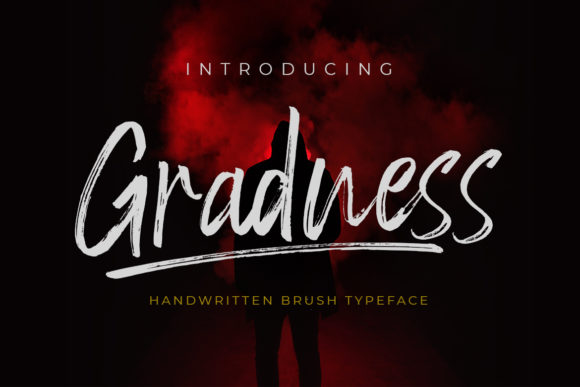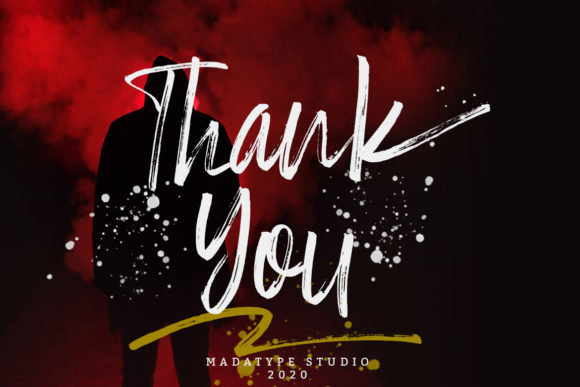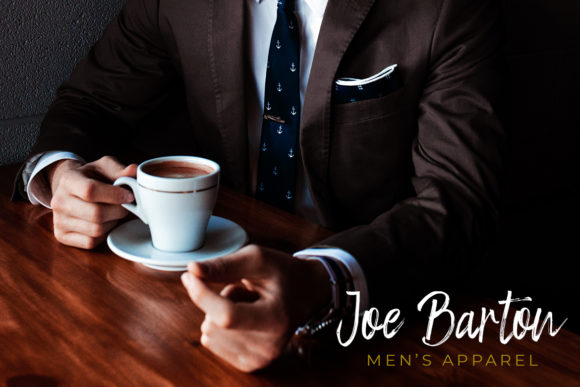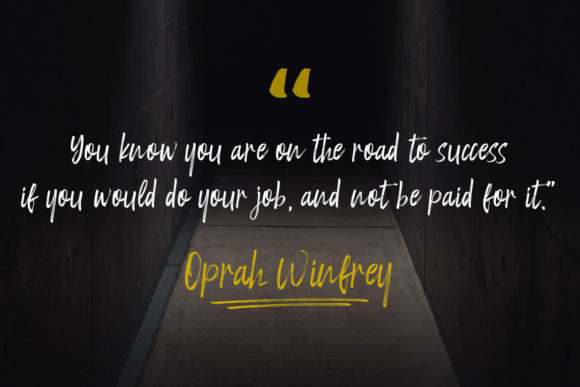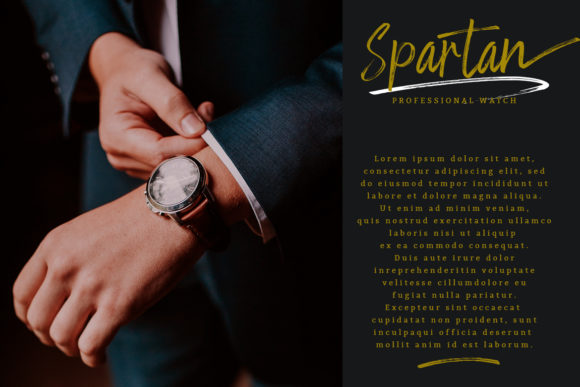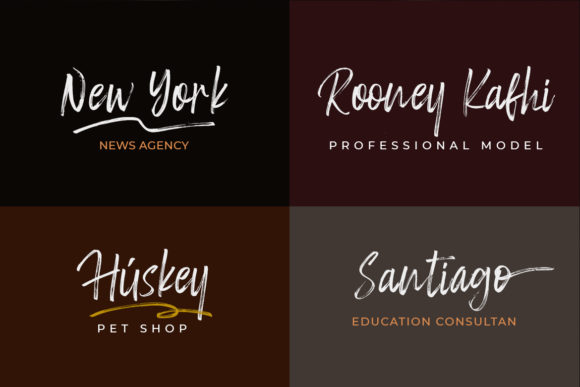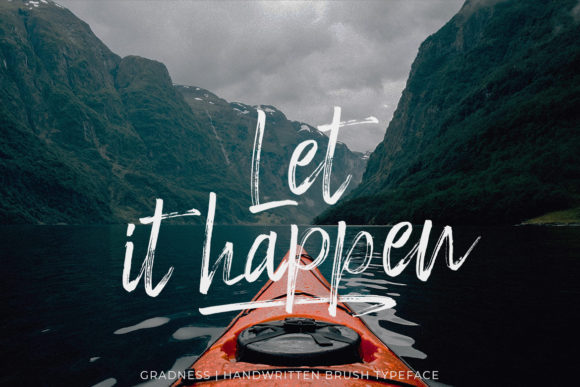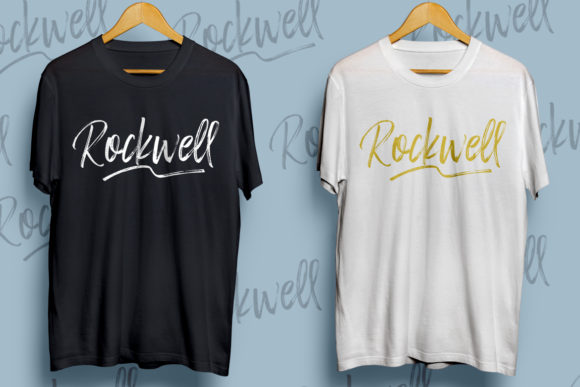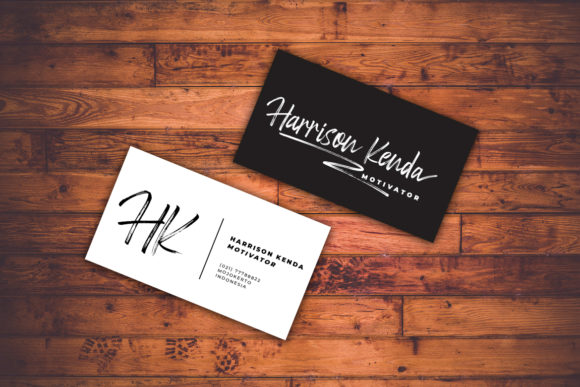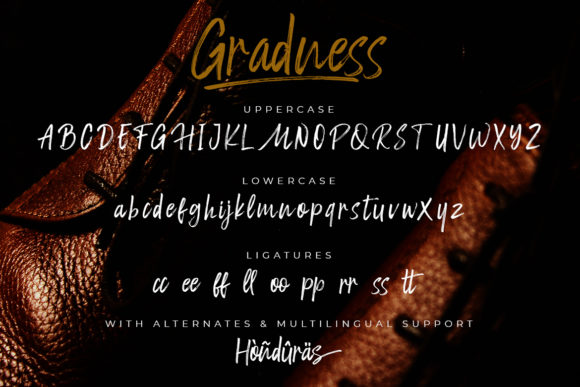
HomeScript FontsGradness Font Script Fonts Gradness Font FacebookXPinterestWhatsApp Gradness Font Poster 2 Gradness Font Poster 3 Gradness Font Poster 4 Gradness Font Poster 5 Gradness Font Poster 6 Gradness Font Poster 7 Gradness Font Poster 8 Gradness Font Poster 9 Gradness Font Poster 10 About Gradness Font Gradness is a natural handwritten brush font. The natural brush texture makes this font perfect for many projects! DOWNLOAD ON CREATIVE FABRICAThis font is sold and delivered by Creative Fabrica. Font Canyon may earn a commission if you buy through this link. People also explored Amllisen Font Garvon Font Ethereal Font Wunderlust Font Southbound Font Zealand Spring Bar Font Feminine Royal Gildan 5000 TShirt Mockup ChildPets Font 422 0 TagsGradness Font Previous articleCassanova FontNext articleHealers Font LEAVE A REPLY Cancel reply Comment: Please enter your comment! Name:* Please enter your name here Email:* You have entered an incorrect email address! Please enter your email address here Website: Save my name, email, and website in this browser for the next time I comment. Personal Use Free Satori Personal Use Free Read more about this font Catandra Script Personal Use Free Read more about this font Jilliant Personal Use Free Read more about this font Girls Personal Use Free Read more about this font BLOG The 10 Best Handwriting Fonts to Add Personality to Your Designs 10 of the Best Handwriting Fonts for Adding Personality to Your Designs There will undoubtedly be no other better choice than handwriting fonts to give... Top 10 Handwritten Fonts That Elevate Your Designs How to Install and Use Fonts on Windows, macOS, and Web Projects Top 7 Google Fonts Alternatives for Faster and Privacy-Friendly Web Design (2025)